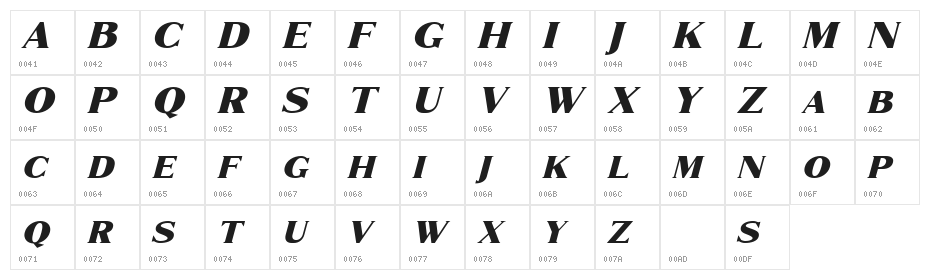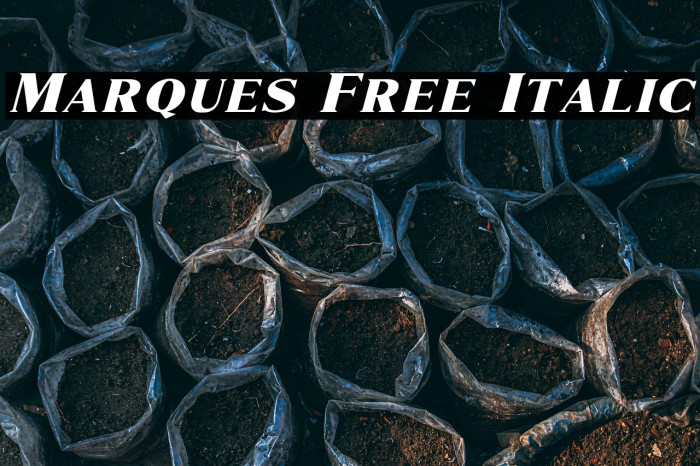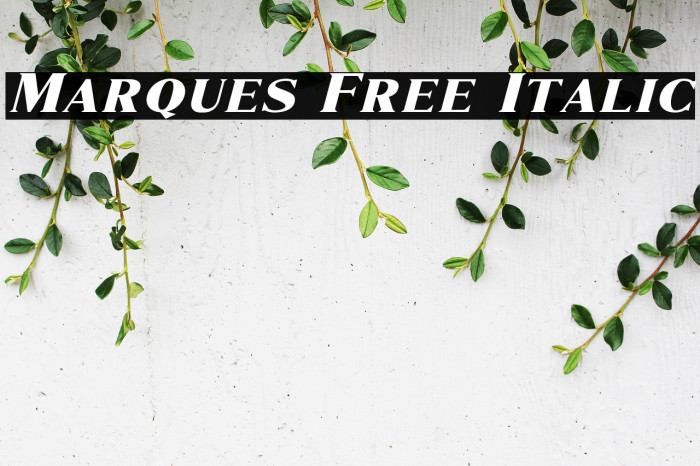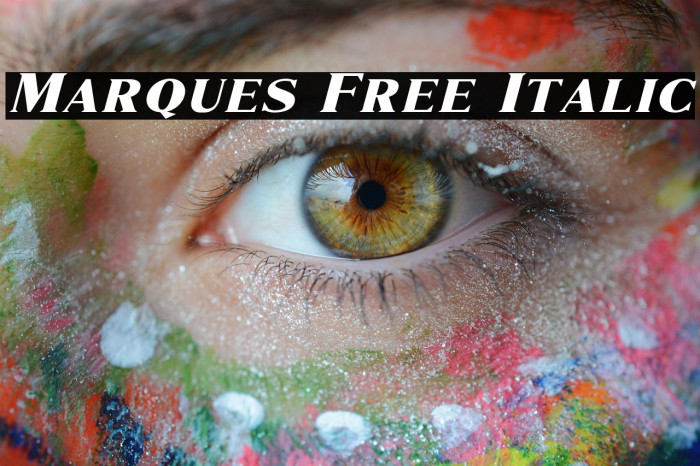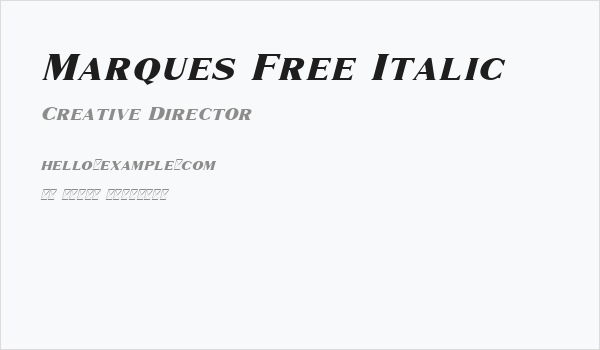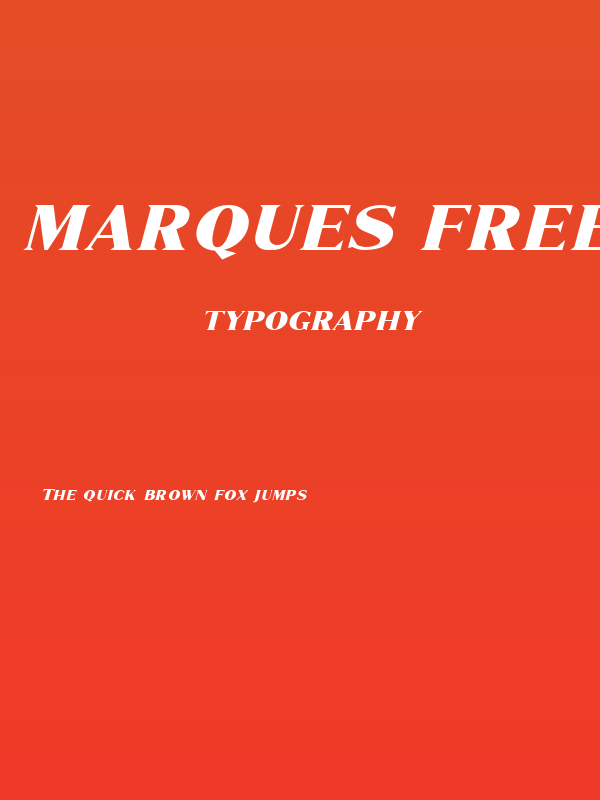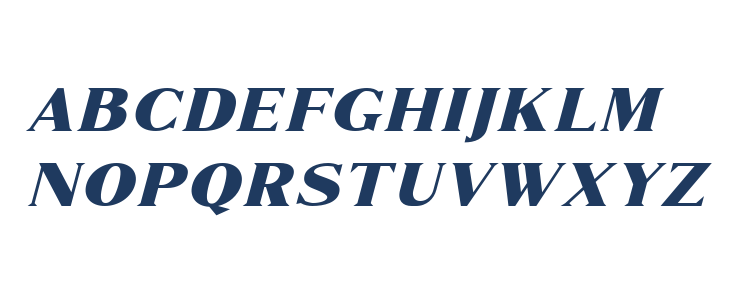
Marques Free Italic Font
Marques Free Italic Description
This font features a dynamic and elegant italic style, characterized by its slanted and fluid letterforms. The strokes are bold and confident, with a slight contrast that adds to its readability and appeal. The serifs are pronounced, giving it a classic touch while maintaining a modern flair. The overall design is sleek and sophisticated, making it suitable for a variety of applications where a touch of elegance is desired. The spacing between characters is balanced, ensuring clarity and legibility.
| Use Case | Headlines, Logos, Editorial design |
| Proposed Projects | Ideal for branding, editorial design, book covers, and elegant invitations. |